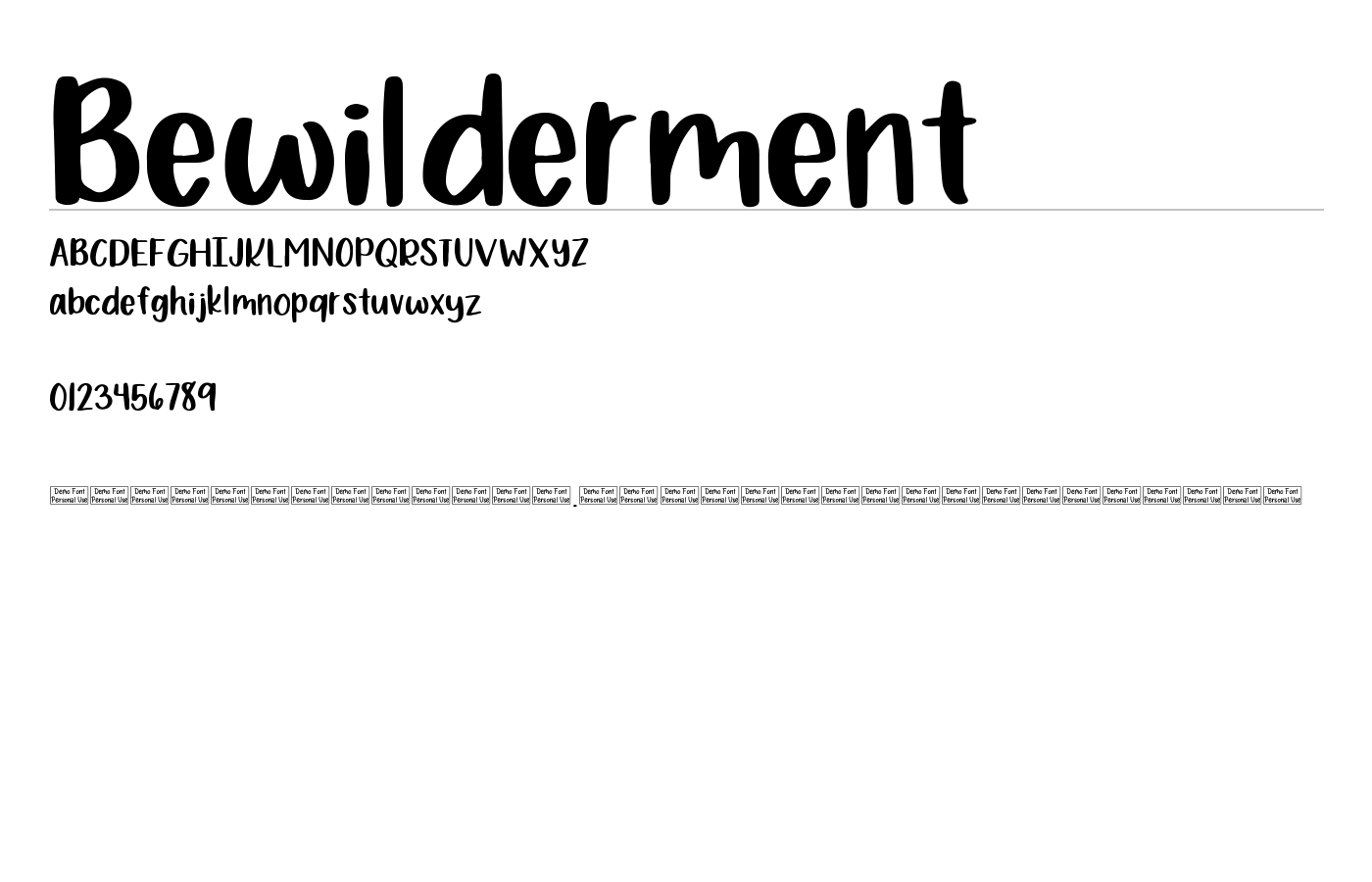
Bewilderment Font is a playful and casual handwritten sans serif typeface characterized by its tall, slightly irregular letterforms and rounded edges. Its friendly, approachable style with moderate contrast and clean strokes makes it perfect for adding a personal touch to informal designs, such as invitations, children’s books, and creative branding. This font works especially well where warmth and originality are desired, creating an inviting and whimsical mood.
Bewilderment Font
About Bewilderment Font